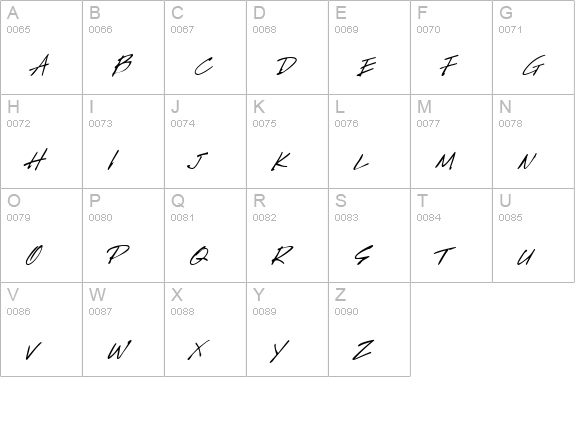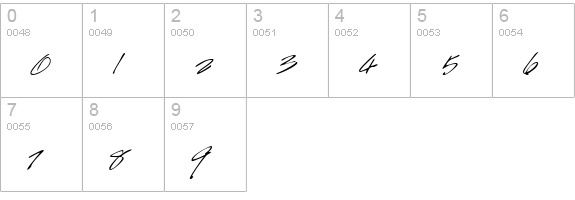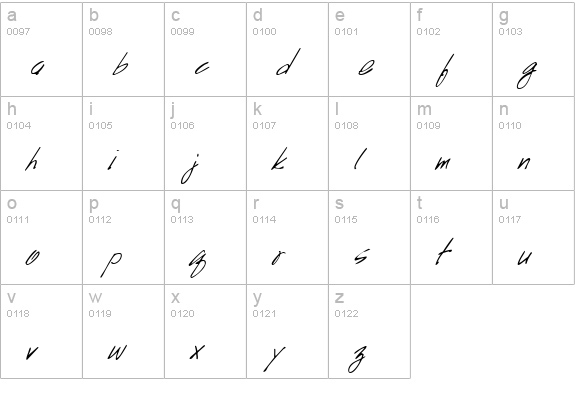
HandScript Italic Font Details
HandScript Italic is a distinctive, italic variant in the HandScript typeface family \xE2\x80\x94 well suited to design and typography projects.
HandScript Italic is a beautifully crafted font that adds a touch of elegance and sophistication to any design project. With its flowing and graceful strokes, this font exudes a sense of charm and creativity. The italic style adds a modern twist to the traditional handwritten script, making it perfect for a variety of uses. Whether you're designing wedding invitations, creating personalized stationery, or crafting a logo for your business, HandScript Italic is sure to impress. Its unique and artistic letterforms bring a sense of personality and individuality to your designs, making them stand out from the crowd. Not only does HandScript Italic offer stunning aesthetics, but it also provides versatility in its usage. It is equally suitable for both print and digital mediums, ensuring that your designs look flawless across various platforms. The best part? HandScript Italic is free! Yes, you read that right. This incredible font is freely available to download at FontsMarket.com. You can unleash your creativity without worrying about any additional costs. So why wait? Go ahead and grab this amazing font today, and elevate your designs to a whole new level of beauty and sophistication.